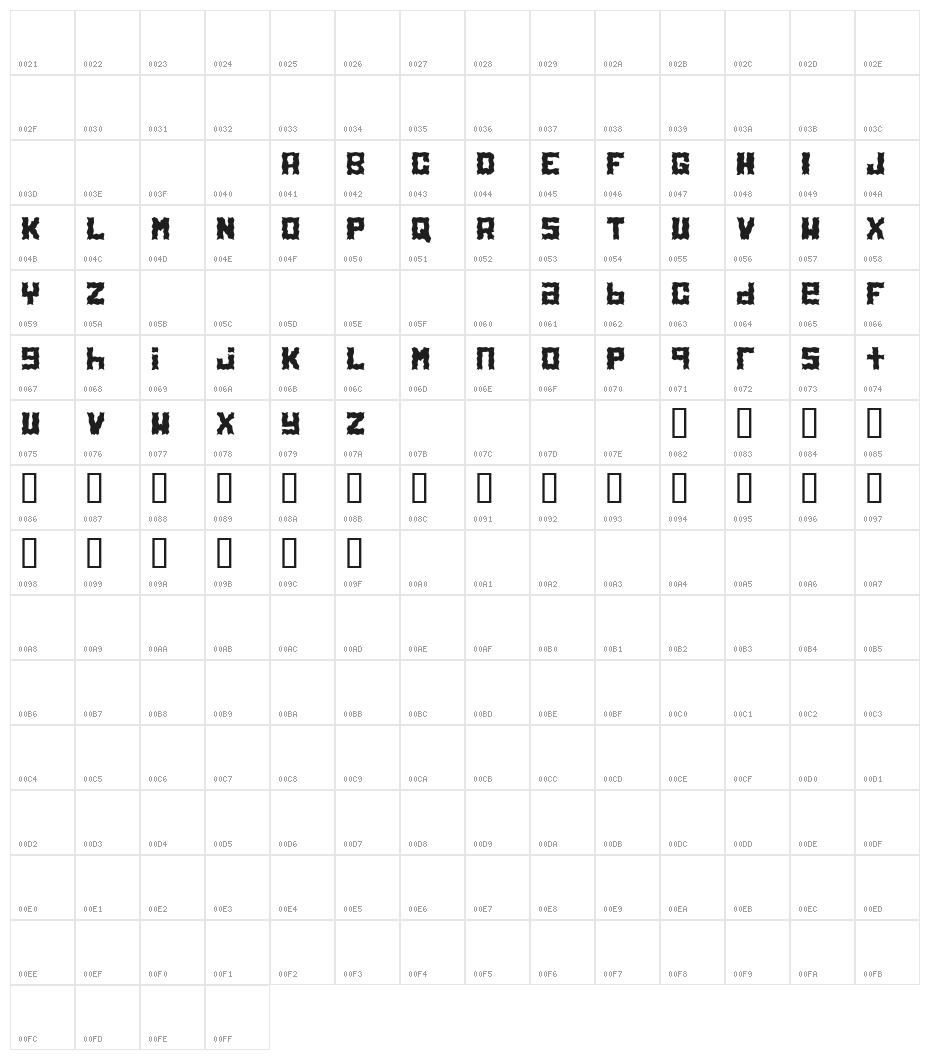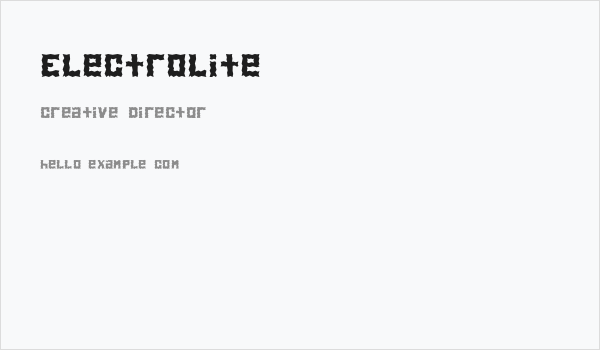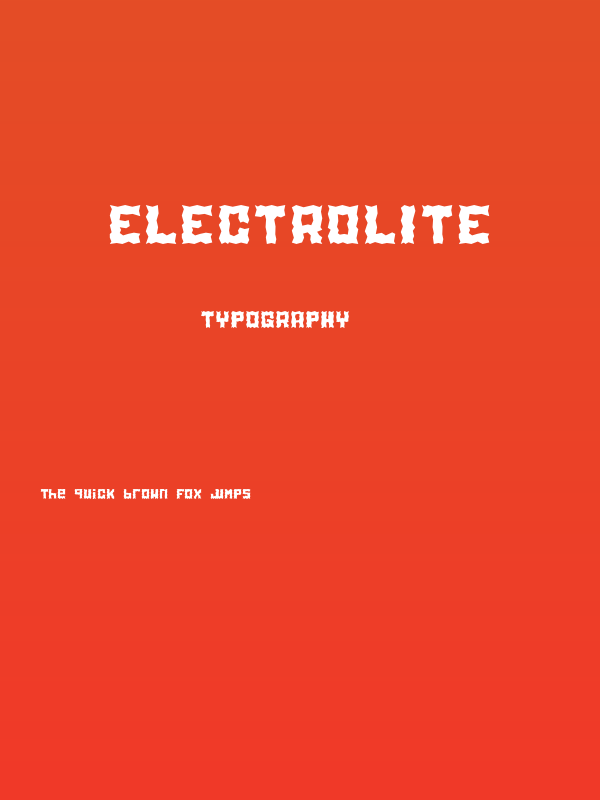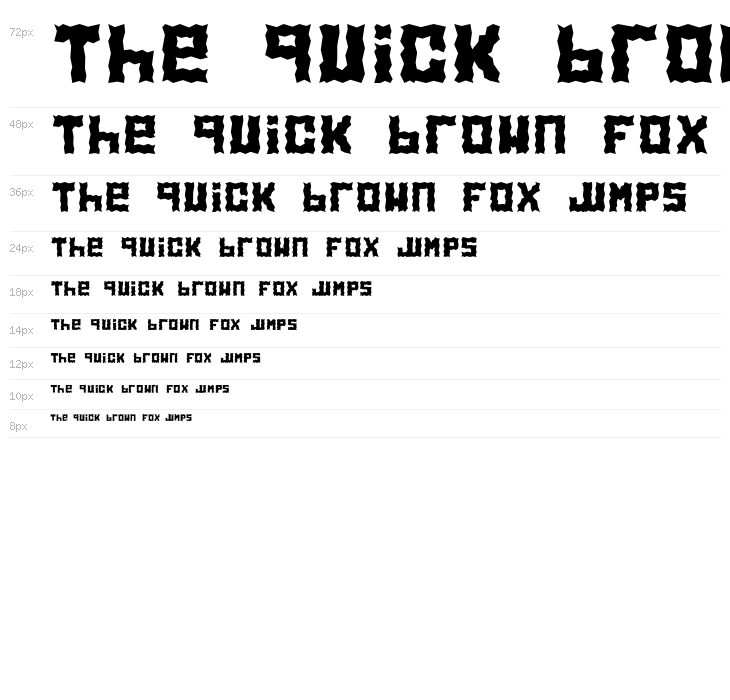
Electrolite Font
Electrolite Description
This font features a bold and jagged design, reminiscent of electric currents or lightning bolts. Each character is crafted with sharp, angular edges that give it a dynamic and energetic appearance. The uppercase and lowercase letters maintain a consistent style, with the uppercase being slightly more pronounced. Numbers and special characters follow the same aesthetic, ensuring uniformity across all glyphs. The font's unique style makes it stand out, ideal for projects that require a sense of movement or intensity.
| Overall Style | Modern, Energetic |
| Proposed Projects | Ideal for music album covers, video game titles, posters, and branding that requires a dynamic and edgy look. |